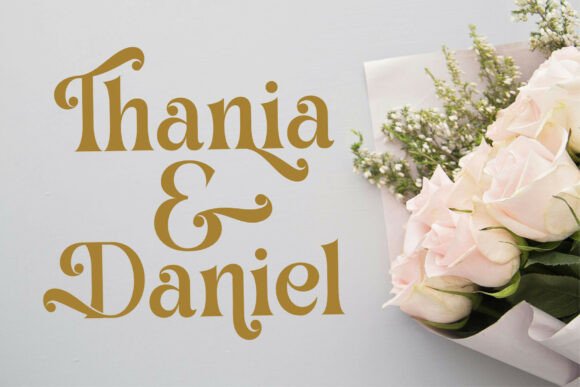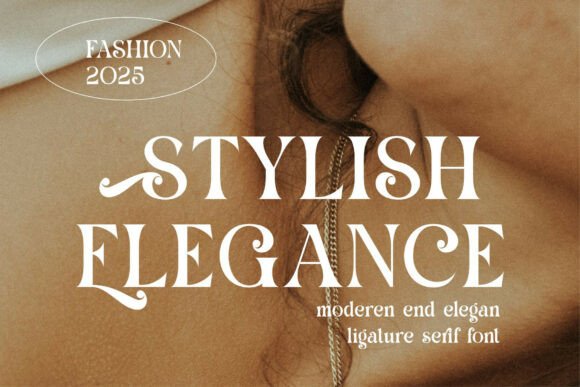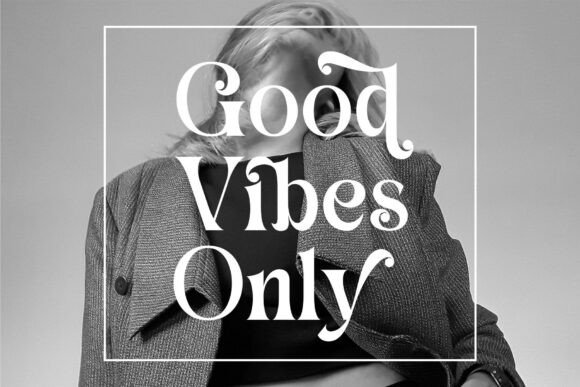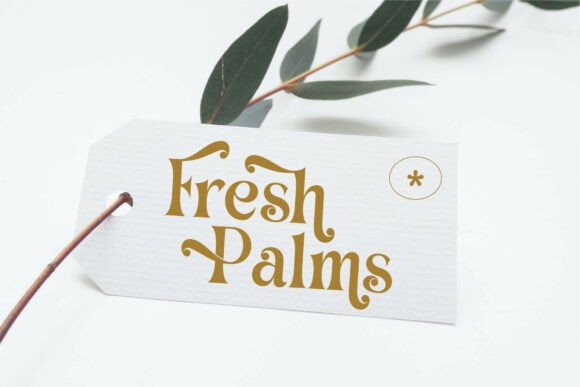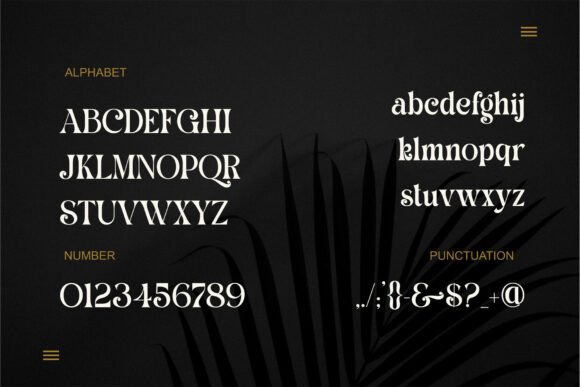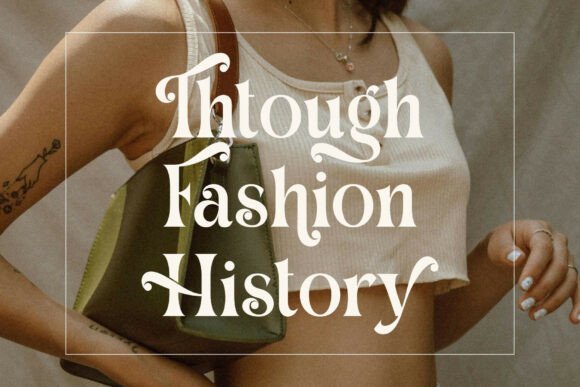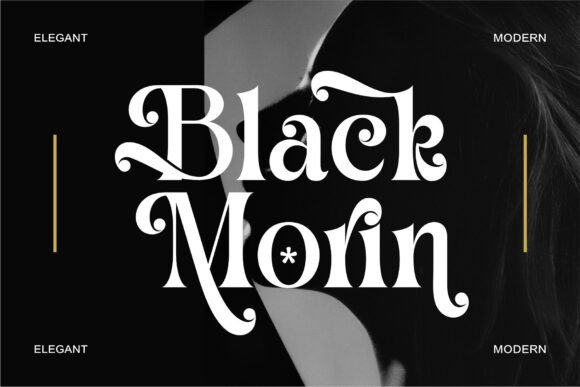
Introducing Black Morin: The Epitome of Modern Serif Elegance
In the realm of typography, few fonts manage to strike a balance between classic sophistication and modern artistic flair. Black Morin, a striking modern serif font, is one such exceptional design that seamlessly blends timeless elegance with a bold, artistic statement. This luxurious font is perfect for designers and crafters looking to infuse their projects with a sense of high-end style and confidence.
Design Characteristics of Black Morin
Black Morin is distinguished by its sophisticated ligatures, high-contrast strokes, and ornamental swashes. These design elements work in harmony to create a font that exudes luxury and boldness, making it an ideal choice for a variety of applications, including fashion editorials, branding, logos, and magazine headlines.
Sophisticated Ligatures and High-Contrast Strokes
One of the standout features of Black Morin is its sophisticated ligatures. These special character combinations add a layer of elegance and fluidity to the text, making it perfect for designs where flow and continuity are key. The high-contrast strokes further enhance the font’s luxurious feel, providing a clear visual hierarchy that guides the reader’s eye through the text with ease.
Ornamental Swashes and Decorative Curves
The ornamental swashes and decorative curves in Black Morin are what truly set it apart. These elements add a touch of artistic flair to the font, allowing designers to create unique and eye-catching text arrangements. Whether used to emphasize a particular word or to add a decorative border to a design, these swashes and curves bring a level of sophistication and style that’s hard to achieve with standard fonts.
Applications of Black Morin
Black Morin’s versatile design makes it suitable for a wide range of applications. Here are some of the areas where this font truly shines:
• Fashion Editorials: The font’s luxurious aesthetic and high-end feel make it perfect for fashion magazines, editorial spreads, and designer portfolios.
• Branding and Logos: Black Morin’s unique letterforms and decorative elements make it an excellent choice for brands looking to establish a sophisticated and stylish identity.
• Magazine Headlines: The font’s bold and attention-grabbing design makes it ideal for headlines and titles, where it can help draw readers into the content.
Why Choose Black Morin?
For designers and crafters looking for a font that combines elegance with a bold artistic statement, Black Morin is an unbeatable choice. Its unique letterforms, sophisticated ligatures, and decorative curves ensure that every word feels like a statement of style and confidence. Here are a few reasons why Black Morin stands out:
• Timeless Elegance: Despite its modern design, Black Morin possesses a timeless quality that ensures it will remain stylish for years to come.
• Versatility: The font’s versatility means it can be used in a variety of contexts, from digital designs to print materials.
• Uniqueness: Black Morin’s distinctive design elements ensure that any project using the font will stand out from the crowd.
Black Morin is more than just a font; it’s a design statement. Its blend of modern serifs, sophisticated ligatures, high-contrast strokes, and ornamental swashes makes it a powerful tool for designers and crafters aiming to create luxurious and bold aesthetics. Whether you’re working on a fashion editorial, a branding project, or a magazine headline, Black Morin offers the perfect combination of elegance and artistic flair to make your work stand out.
Incorporate Black Morin into your design projects and experience the impact of a truly exceptional font. With its unique blend of style, sophistication, and artistic expression, Black Morin is set to become a favorite among designers seeking to make a statement with their typography.